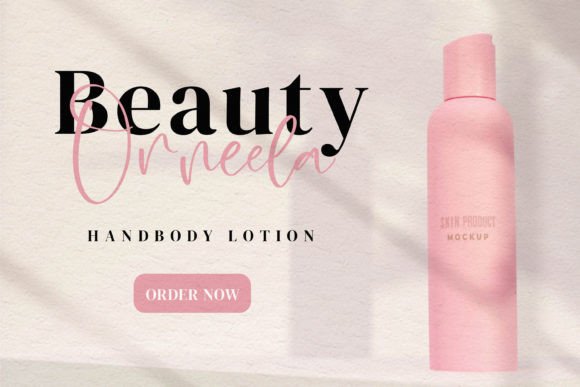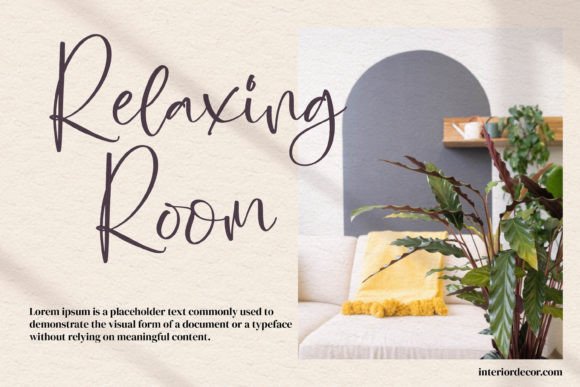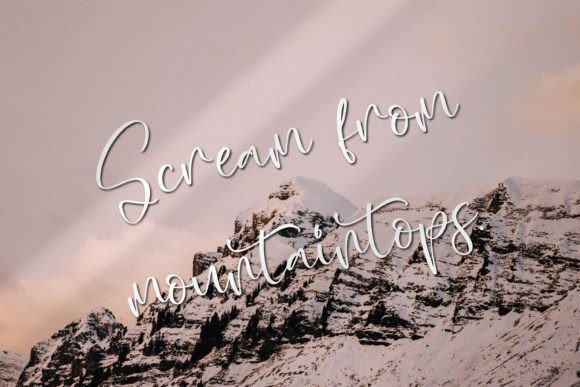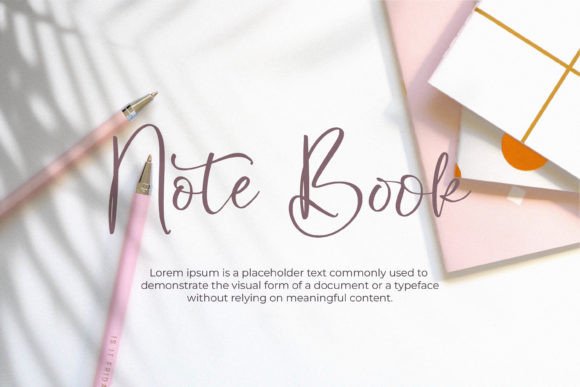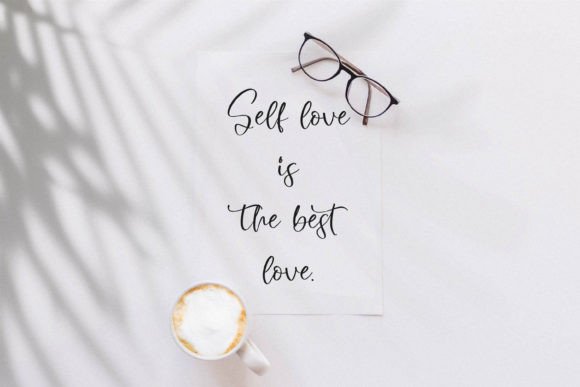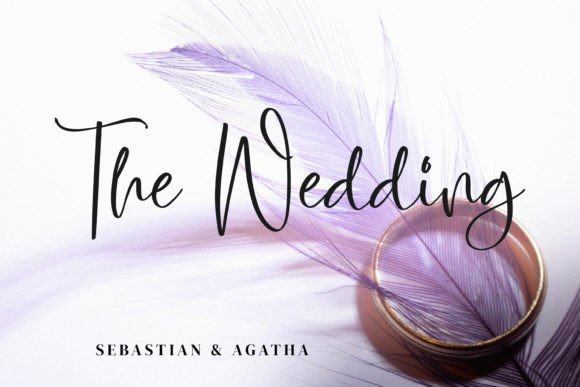
The Magic of Cimbrella Font: Elevate Your Creative Projects
Have you ever been scrolling through Instagram, and a beautifully crafted post catches your eye? The elegant script, the perfect balance of curves and lines – it’s like magic. As a creative, you know how hard it is to put your ideas into words, but with the right tools, anything is possible.
Enter Cimbrella Font, a carefully crafted magical script font designed to bring your creative ideas to life. Whether you’re a seasoned designer or a DIY enthusiast, Cimbrella Font is the perfect companion for your next project. Its touch of elegance will elevate any text, making it a valuable addition to your design arsenal.
Cimbrella Font Key Features
- Font Family: Cimbrella Font offers a unique and elegant script font, ideal for creative projects.
- Size: The font family includes multiple weights and styles, ranging from 100 to 900, allowing for precise control over the font’s appearance.
- Unique Characteristics: Cimbrella Font features a distinctive, hand-written style with subtle flair and texture, adding a touch of personality to any design.
- Character Count: Includes a comprehensive character set, covering Latin, Cyrillic, and Greek alphabets, as well as punctuation and symbols.
Cimbrella Font Review
Overall, I think the Cimbrella font has some great qualities that make it worth considering, but it’s not without its limitations.
- Cimbrella has a unique, playful feel to it that’s perfect for titles and headings. It’s eye-catching and fun.
- The font is highly legible, even at smaller sizes, making it suitable for body text as well.
- The font’s versatility means it can be used in a wide range of design contexts, from digital to print.
- The font’s bold and italic styles can feel a bit inconsistent, which may require some careful adjustment in design.
- There’s a lack of support for certain languages, which may limit its use in multilingual design projects.
- The font’s file size is relatively large, which can impact performance in digital applications.
While Cimbrella has some great qualities, its limitations prevent it from being a top choice for me. With some careful selection and adjustment, it can still be a great addition to a design project, but it’s not a go-to font in my opinion.